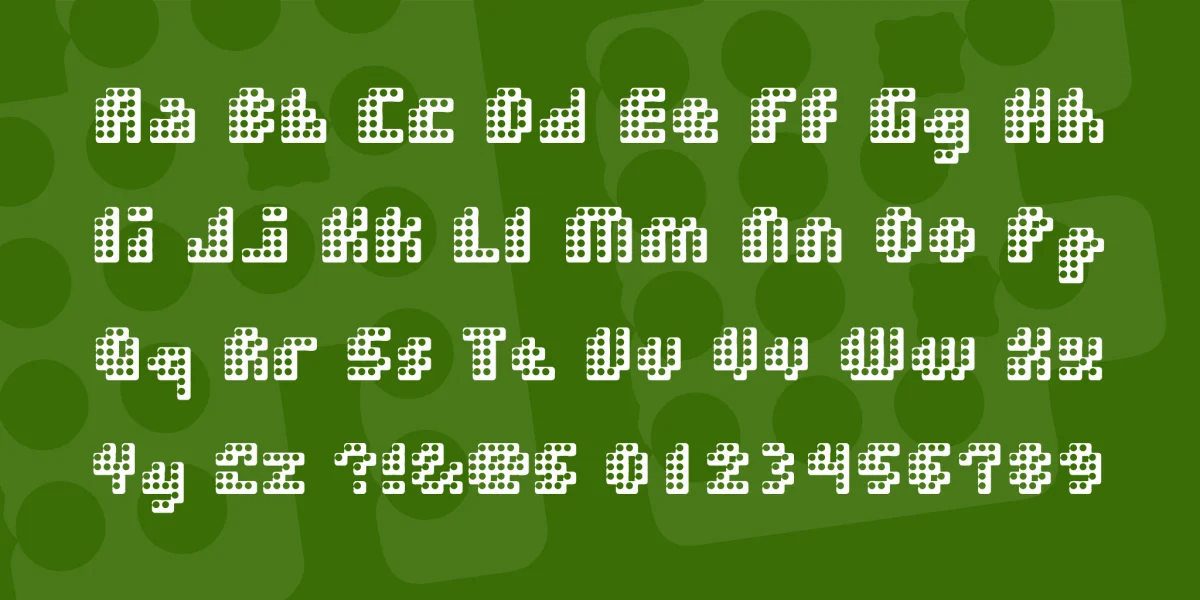
I gathered up all those left over dots from its sister font and made this funky wide and retro number. Hope I'm starting to make up for the lack of new resources...